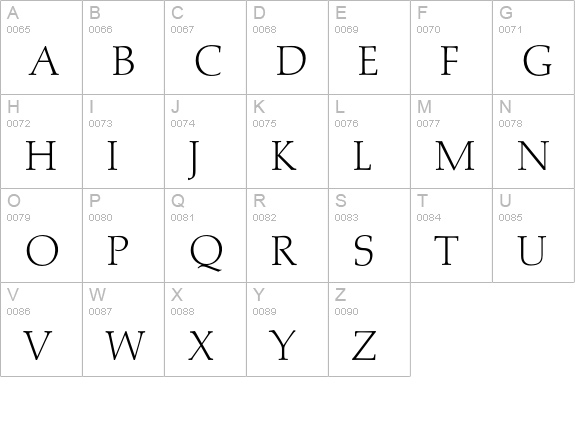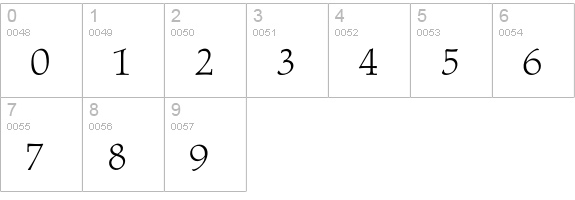
Marath-Xlight Font Details
Marath-Xlight font is a stunning typeface that effortlessly combines elegance with modernity. Designed with precision and attention to detail, this font is perfect for any project that requires a touch of sophistication. Featuring clean lines and delicate curves, Marath-Xlight font exudes a sense of refinement and grace. Its slim and lightweight appearance adds a subtle airiness to any text, making it ideal for both print and digital design. Whether used in headlines, body text, or even logos, this font will captivate the audience with its understated beauty. What sets Marath-Xlight font apart is not only its aesthetics but also its accessibility. This font is freely available to download at FontsMarket.com, making it an excellent choice for designers on a budget or anyone searching for high-quality fonts without breaking the bank. Its availability ensures that anyone can add a touch of elegance to their projects without compromising on quality. With its versatility and timeless appeal, Marath-Xlight font is a must-have for designers who seek to elevate their creations. Whether used in branding, packaging, or editorial design, this font will effortlessly elevate any project to new heights. Embrace the beauty and sophistication of Marath-Xlight font, and let your creativity flourish.